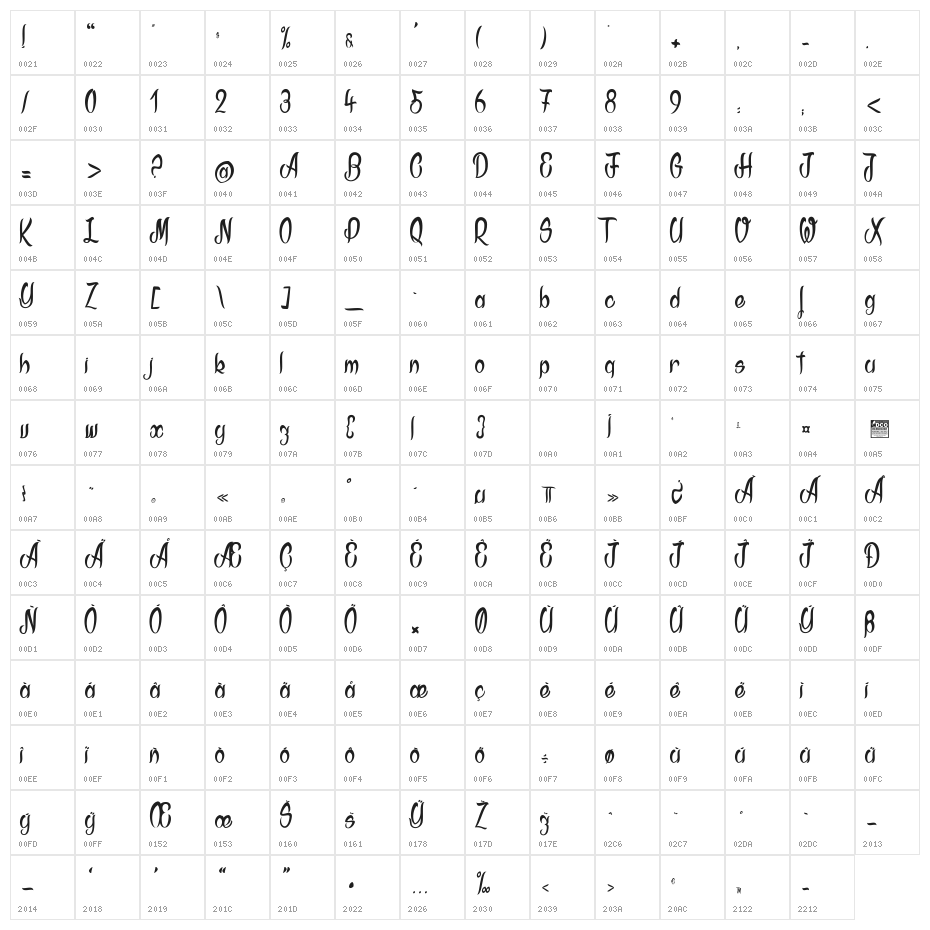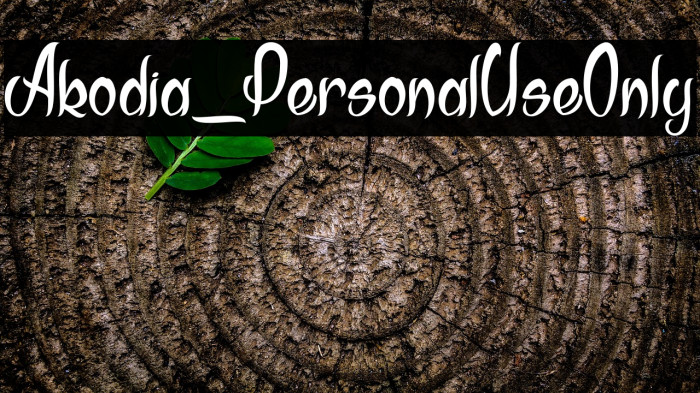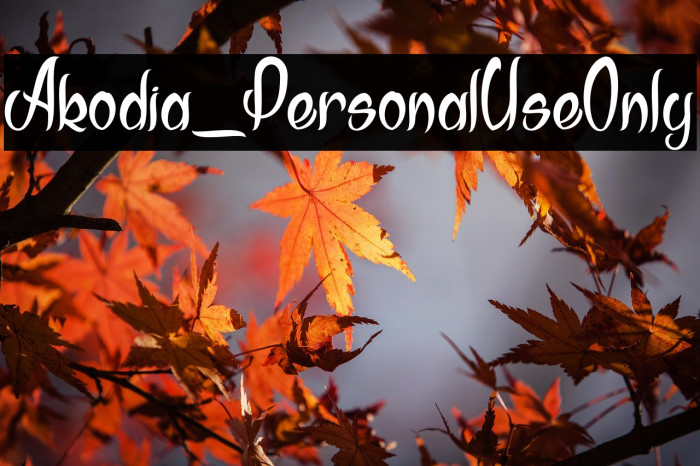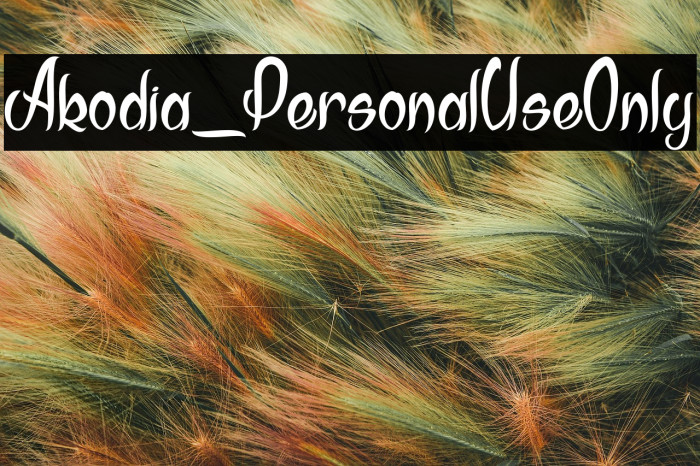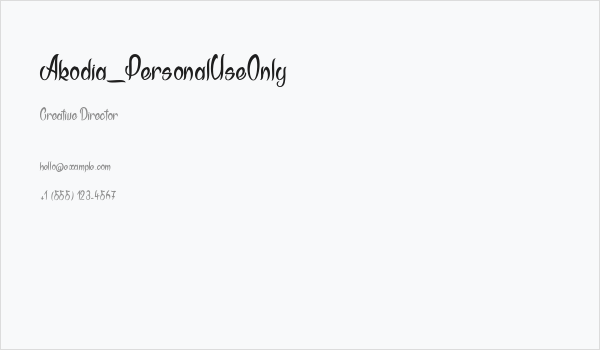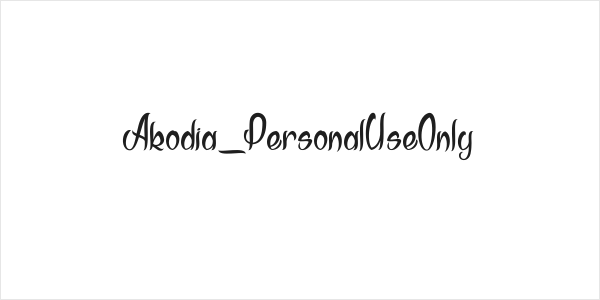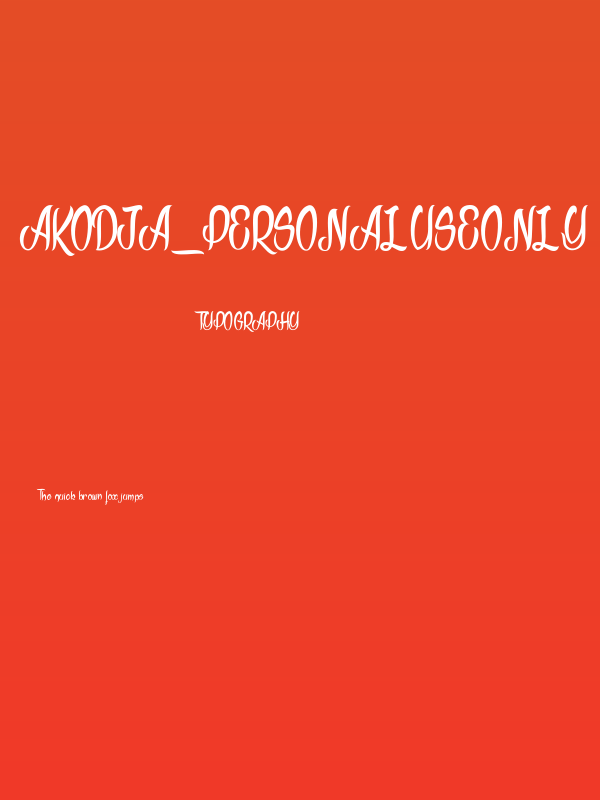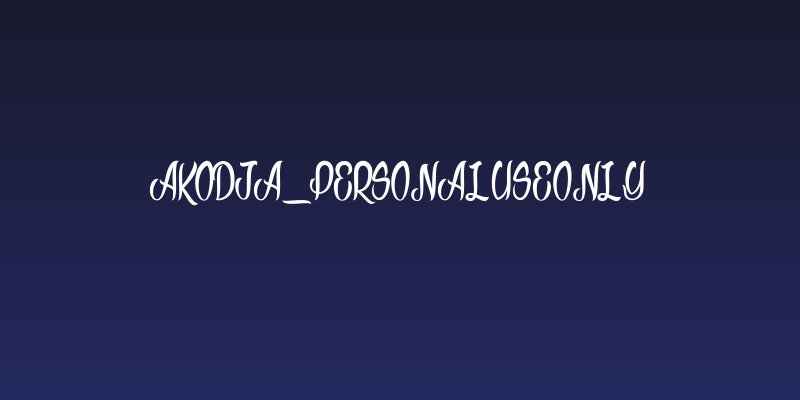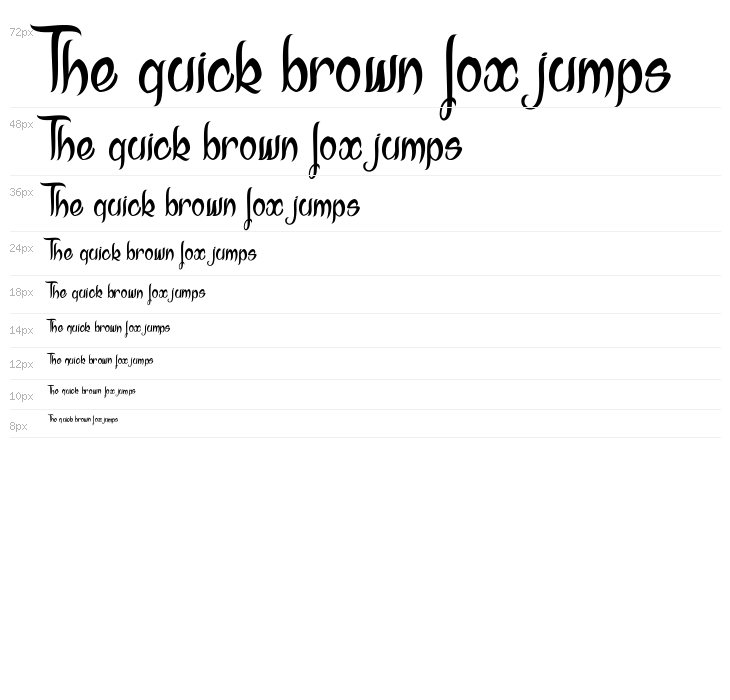
Akodia_PersonalUseOnly Font
Akodia_PersonalUseOnly Description
This font features a unique and artistic style with a flowing, cursive-like appearance. The uppercase letters exhibit a whimsical flair with exaggerated curves and loops, while the lowercase letters maintain a consistent, elegant flow. The numerals are distinct and maintain the same artistic style, ensuring readability. Special characters are creatively designed, complementing the overall aesthetic. This font's playful yet sophisticated design makes it suitable for creative projects that require a touch of elegance and personality.
| Proposed Projects | Ideal for wedding invitations, greeting cards, branding, and artistic posters. |